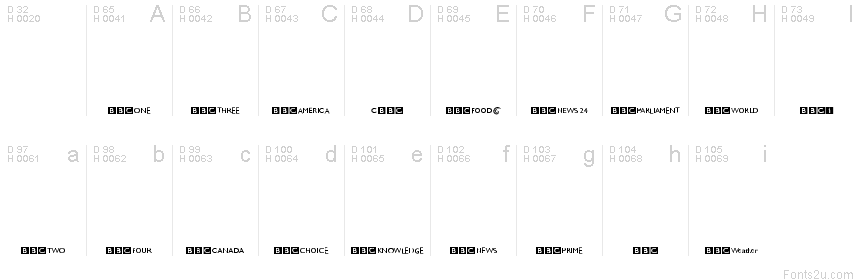
BBC Striped Channel Logos
BBC Striped Channel Logos font by the respective broadcaster captures that unmistakable on-air look: bold white lettering locked into crisp black blocks, with clean stripes and tight spacing that read like a channel ident frozen mid-broadcast. It’s a free dingbats typeface, so instead of letters you get ready-to-drop marks that feel official, graphic, and instantly recognizable.
Using BBC Striped Channel Logos works beautifully for TV or streaming mockups, broadcast-style title cards, retro media posters, fan zines, YouTube thumbnails, motion graphics, presentation decks, and UI placeholders for “channel” tiles. Keep the icons fairly large so the geometry stays sharp, and pair them with a neutral sans like Inter or Helvetica for supporting text—this free font likes simple companions.